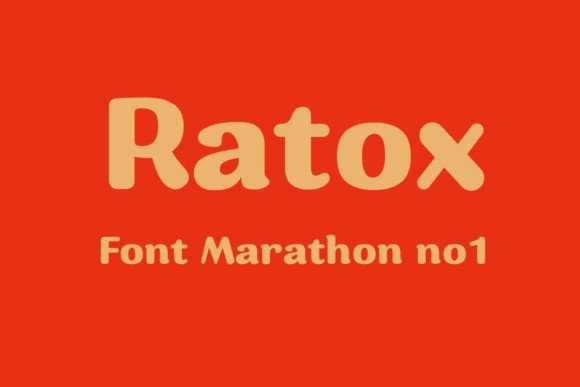
Ratox Font
Ratox Sans Serif Font is a vintage serif typeface by YTY Digital TypeFoundry with rounded edges, soft wedge serifs, and narrow lettering. Inspired by newspapers of the early 1900’s. Ratox also reads well at small sizes, making it a great option for blogs, eBooks, UI designs, and even apps.